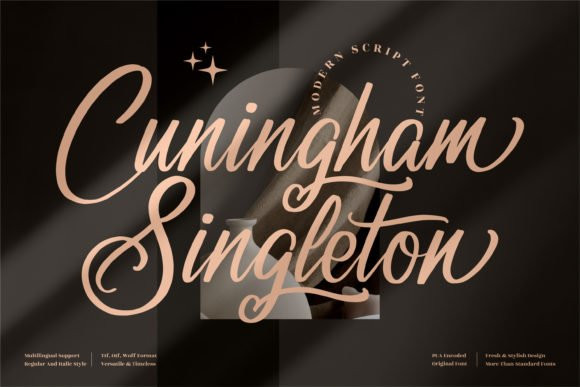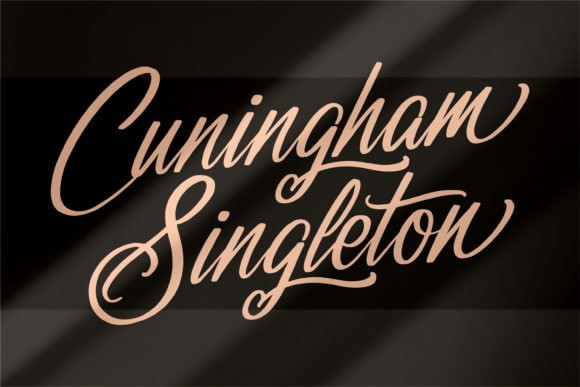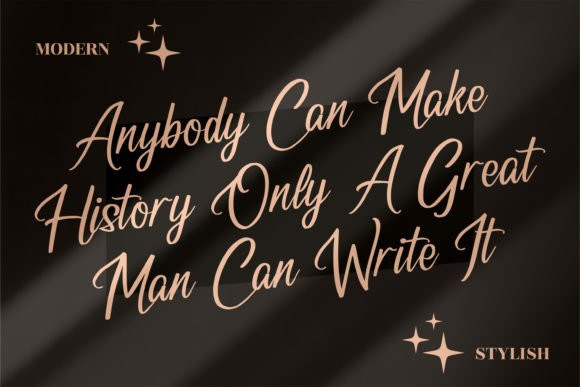
Cuningham Singleton Font
Cuningham Singleton FontCuningham Singleton is a beautiful and light handwritten font with a unique feel and a stunning impact. It will add a luxury spark to any design project that you wish to create! This font is PUA encoded which means you can access all of the amazing glyphs and ligatures with ease!